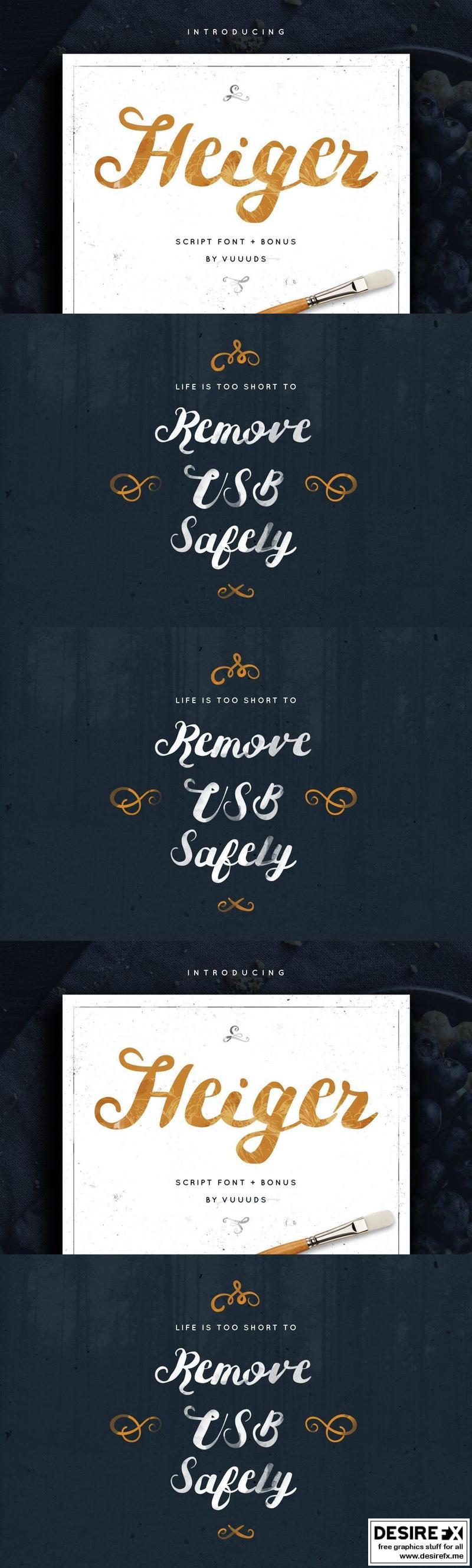
Heiger CL3YRH
Heiger font is a carefully crafted font. This item also comes with lot of free vector swirls set. Every single letters have been carefully crafted to make your words looks awesome. Heiger font can be used for branding, logo, fashion, apparel, letter, invitation, stationery, etc